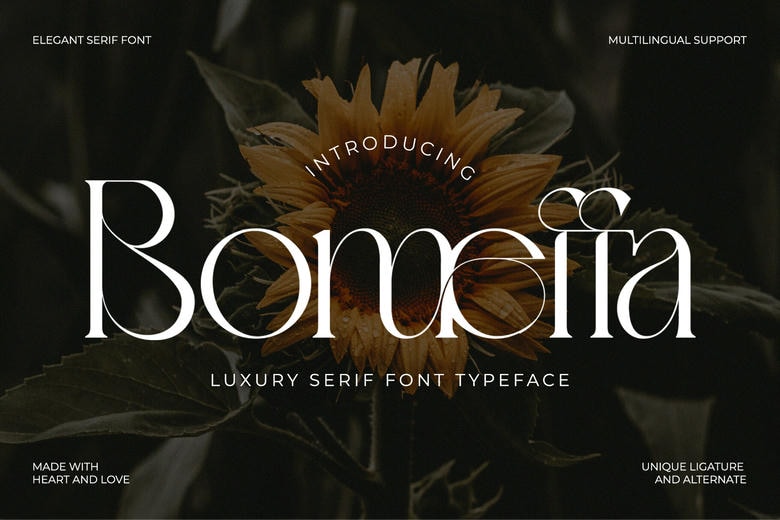
Bomeffa Font
Bomeffa is a serif typeface that is characterized by elegant features that easily confer class, beauty and eternal luxury. This font is created using bold high contrast strokes, elegant curves, and fashionable ligatures and alternate characters, which make any project exquisite.
Ideal in a variety of up-scale uses, Bomeffa is brilliant in branding, fashion features, magazine layouts, packaging, and wedding invitations. It is also seen to have multilingual character support which makes it an all round option when it comes to world wide designs. This elegant serif typeface brings high end work sophistication and creativity.
Bomeffa Serif Font